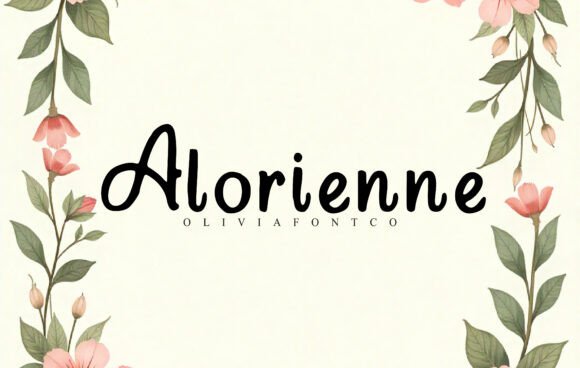
The Alorienne Font: A Soft and Friendly Script for Creative Projects
Have you ever been in the middle of a design project, and suddenly, you’re stuck on finding the perfect font? I recall a recent experience where I was working on a branding project for a lifestyle client, and I just couldn’t find a font that captured the warmth and elegance I was looking for. That’s when I stumbled upon the Alorienne font, and it instantly became my go-to choice. In this article, we’ll dive into the world of Alorienne, exploring its features, uses, and what makes it an excellent addition to your font library.
A Personal Review: What I Love About Alorienne ✨
Alorienne is a soft and friendly script font with a modern handwritten style that has won my heart. Here are some things I love about it:
- ✅ Smooth, rounded forms and graceful entry strokes that give it a personal and approachable feel
- ✅ Perfect for lifestyle branding, stationery, logos, packaging, and quotes
- ✅ Captures a balance between casual charm and professional polish
- ✅ Clear readability and multilingual support
While Alorienne is an excellent font, there are a few minor quirks to be aware of:
- ⚠️ Some users might find the font a bit too soft or delicate for certain projects
- ⚠️ Limited use of uppercase letters, which might not be ideal for headings or titles
The Story Behind Alorienne: Designer Inspiration
The Alorienne font was designed with the intention of creating a soft and friendly script font that captures the warmth and elegance of modern handwritten styles. The designer aimed to create a font that’s both approachable and sophisticated, making it perfect for creative projects and branding.
| What is Alorienne font best used for? | Alorienne font is best used for lifestyle branding, stationery, logos, packaging, and quotes. |
| Is Alorienne a multilingual font? | Yes, Alorienne supports multiple languages. |
In conclusion, Alorienne is a beautiful and versatile font that’s perfect for creative projects and branding. Its soft and friendly style, combined with its clear readability and multilingual support, make it an excellent addition to your font library. With its OpenType features, glyphs, and stylistic alternates, Alorienne offers endless possibilities for creative expression.